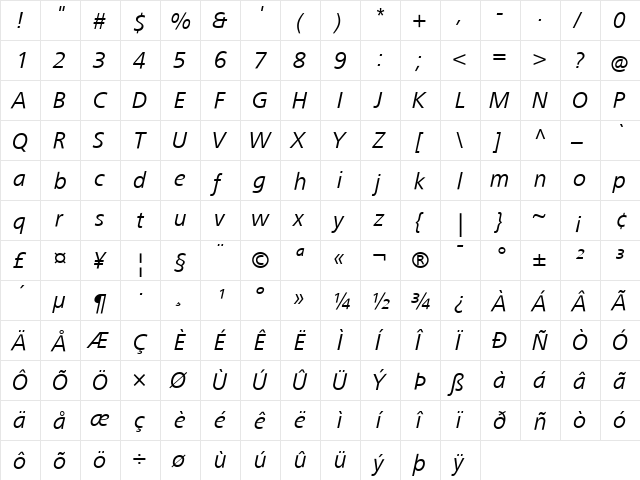
FrutigerNextLT Regular
Design Context for FrutigerNextLT Typeface
FrutigerNextLT is a composed and adaptable typeface that performs quietly and consistently across a wide range of design contexts.
Pro Tip: Pair FrutigerNextLT with a font of contrasting weight or personality to build a more expressive typographic hierarchy.